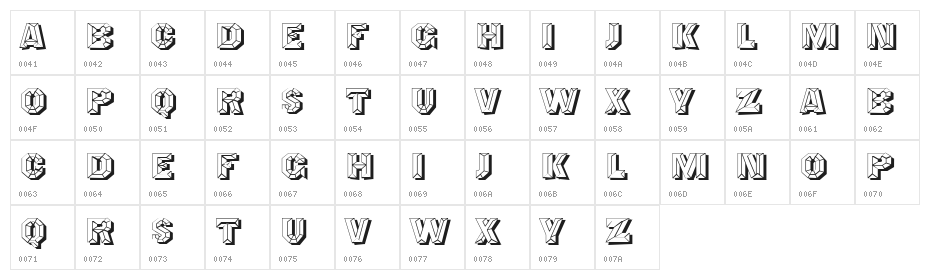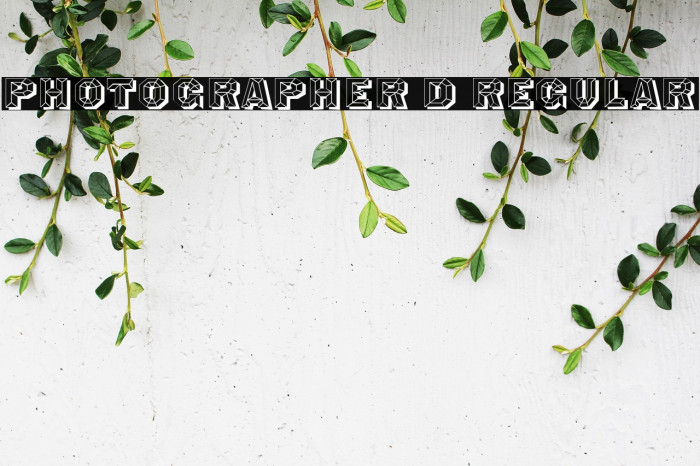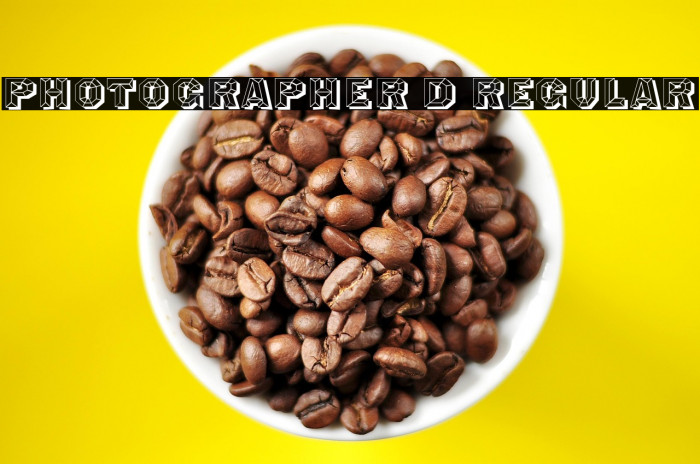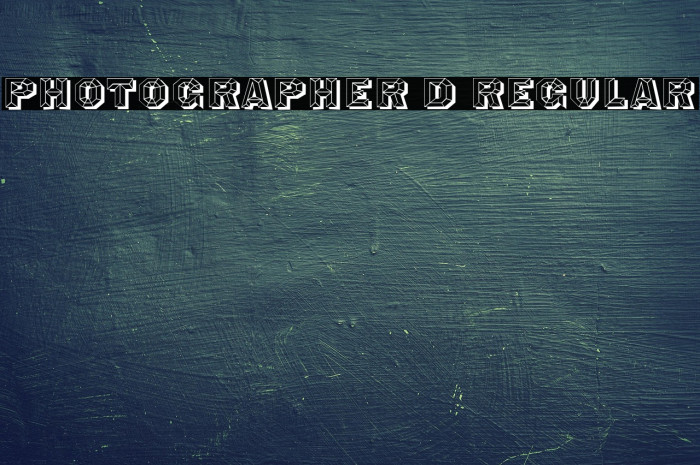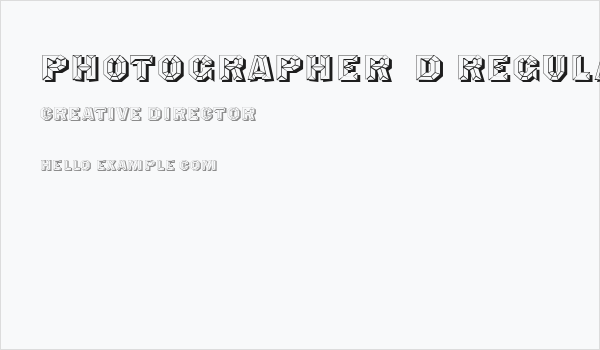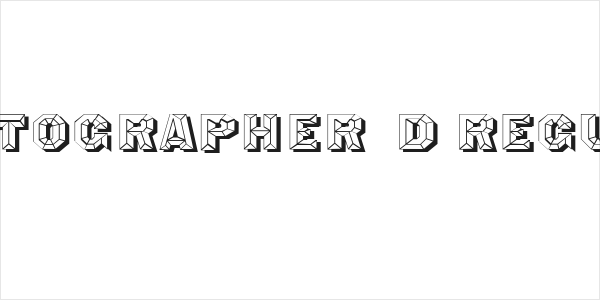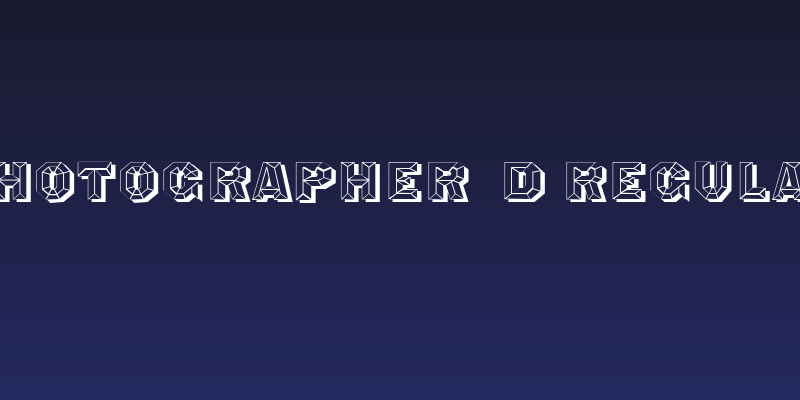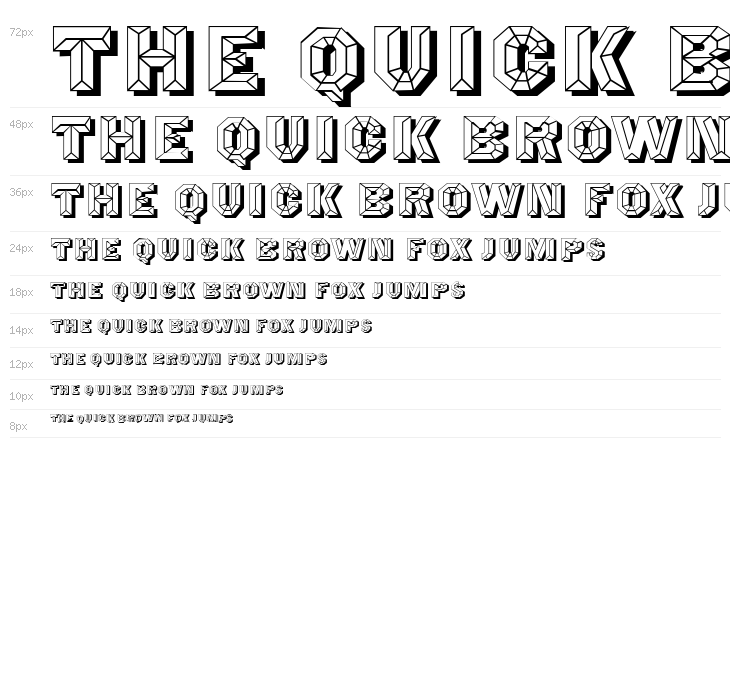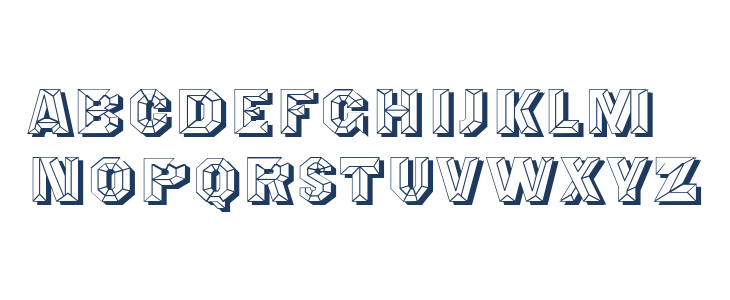
Photographer 3D Regular Font
Photographer 3D Regular Description
This font features a bold, three-dimensional design with a geometric and angular style. Each letter is crafted with a distinct shadow effect, giving it a strong and impactful appearance. The characters are uppercase only, with a consistent width and height, creating a uniform look. The design is reminiscent of architectural or industrial aesthetics, making it suitable for projects that require a modern and edgy feel. The font's unique structure and bold presence make it ideal for attention-grabbing headlines or titles.